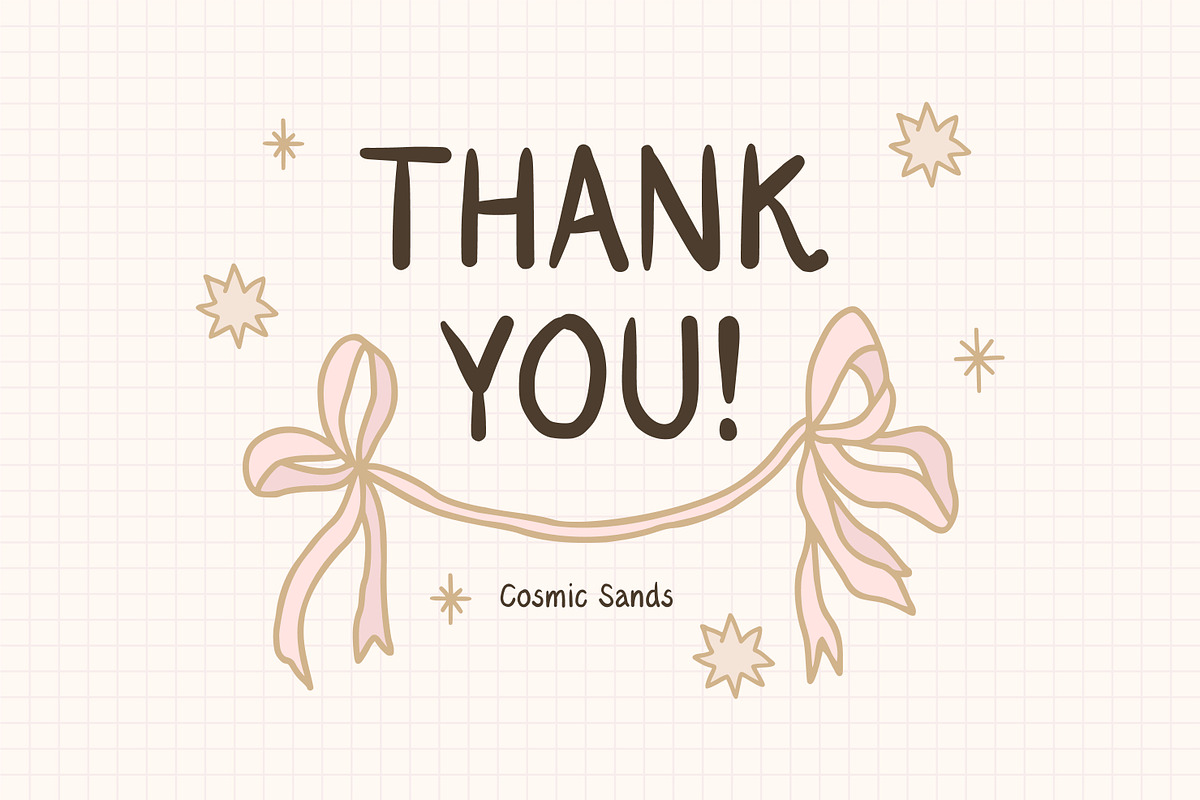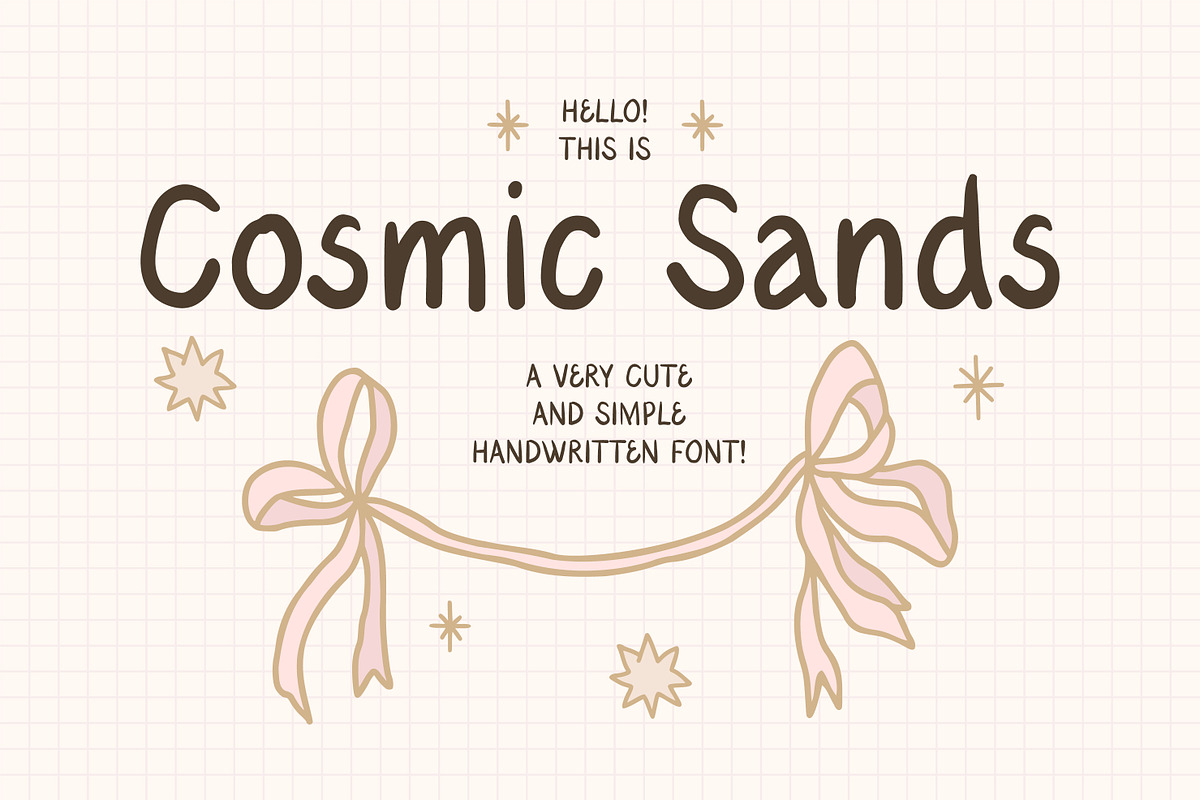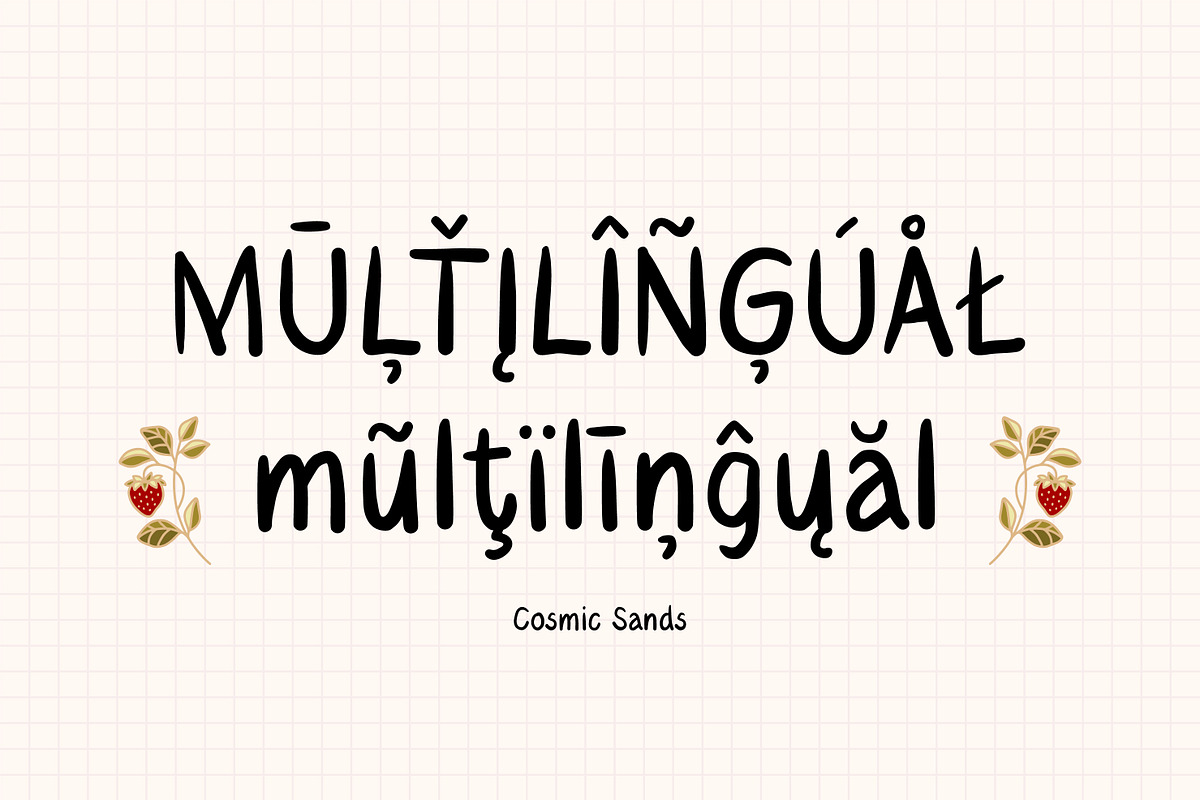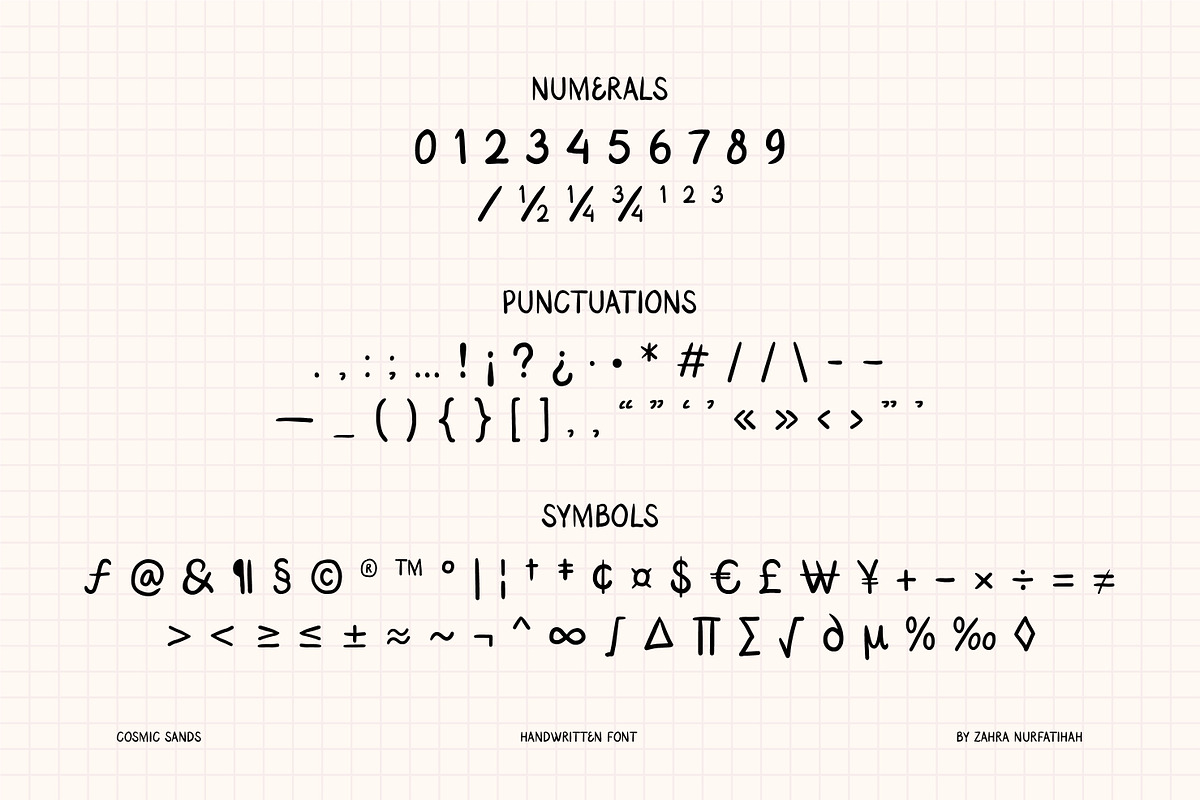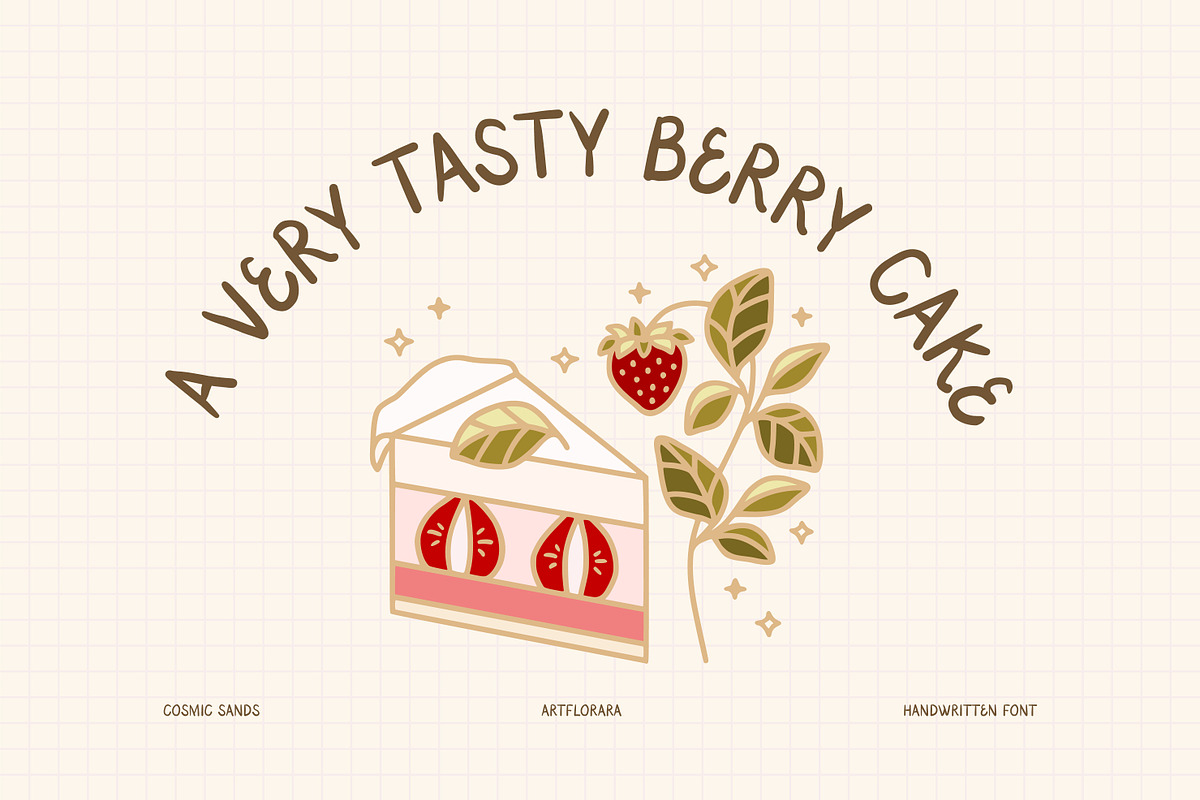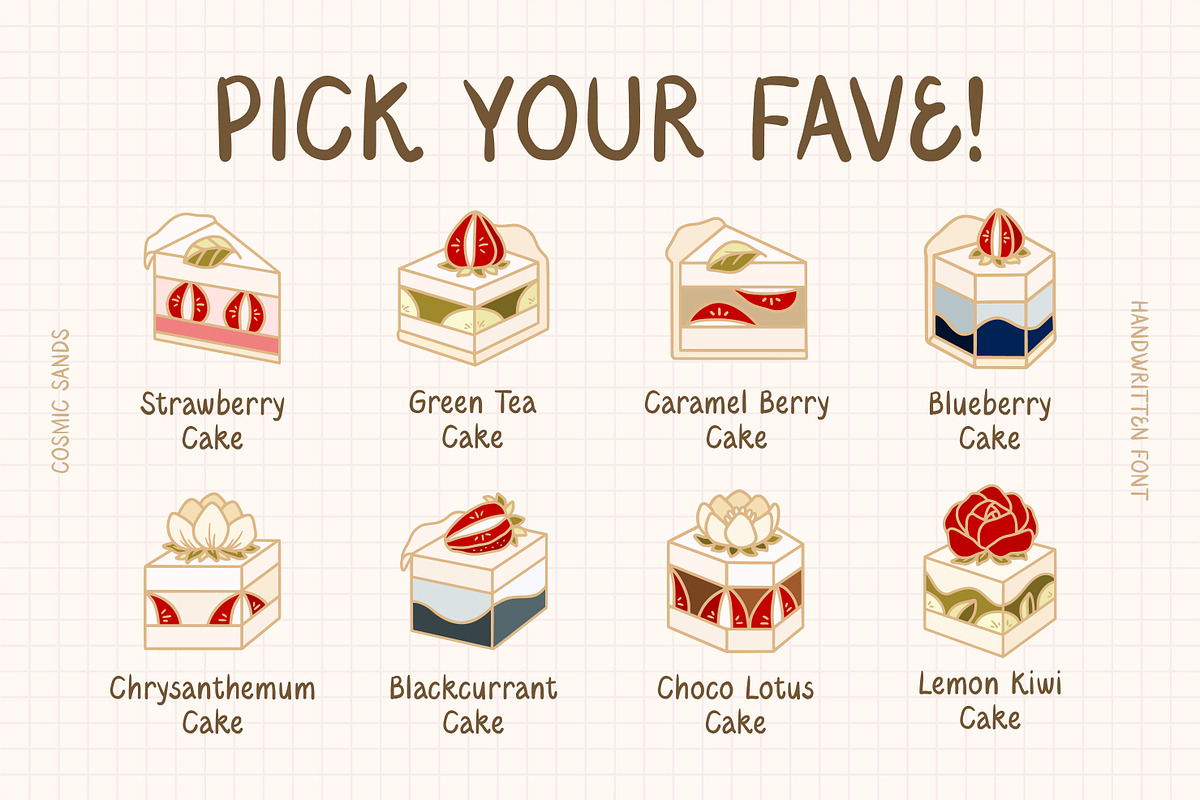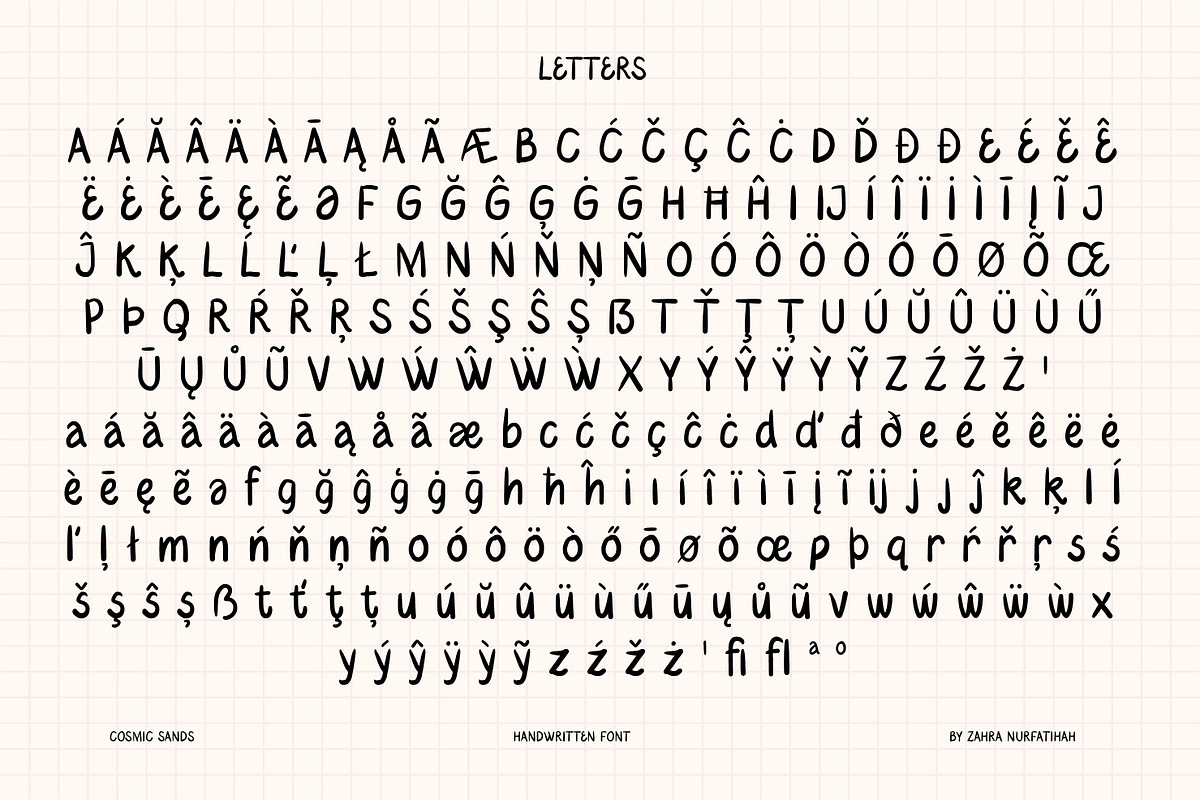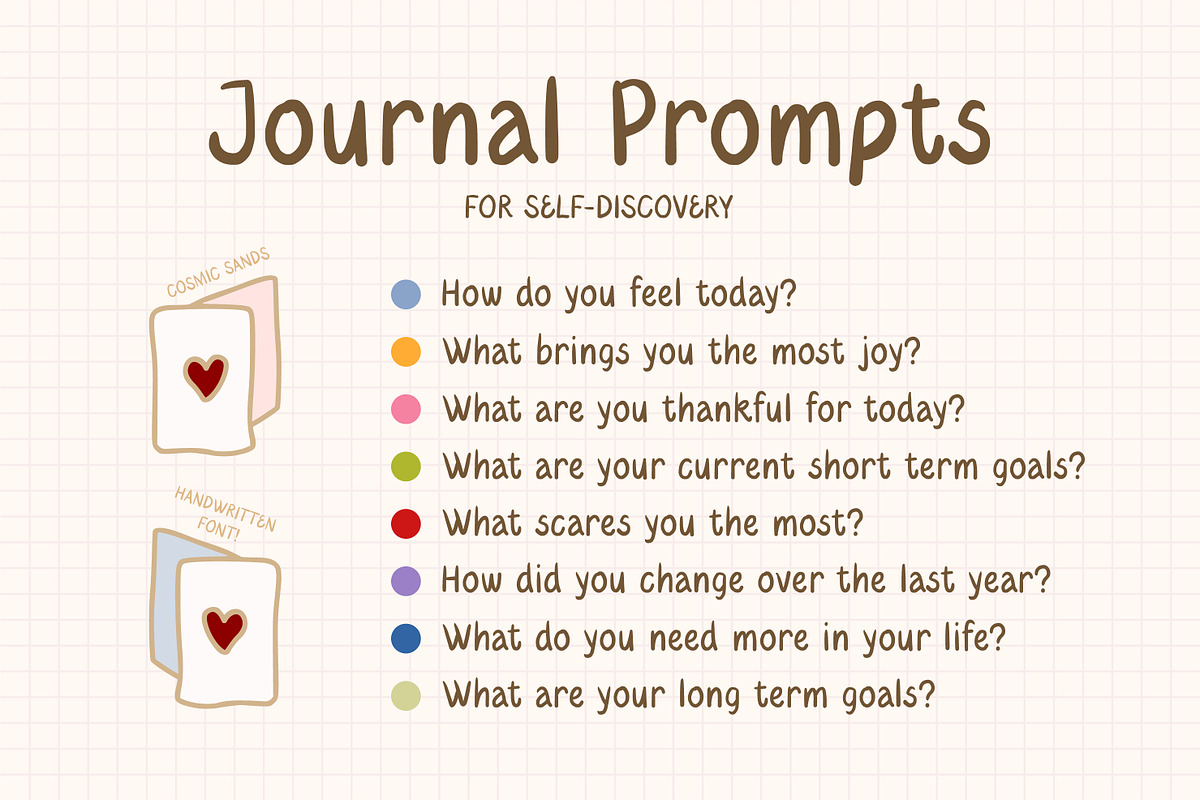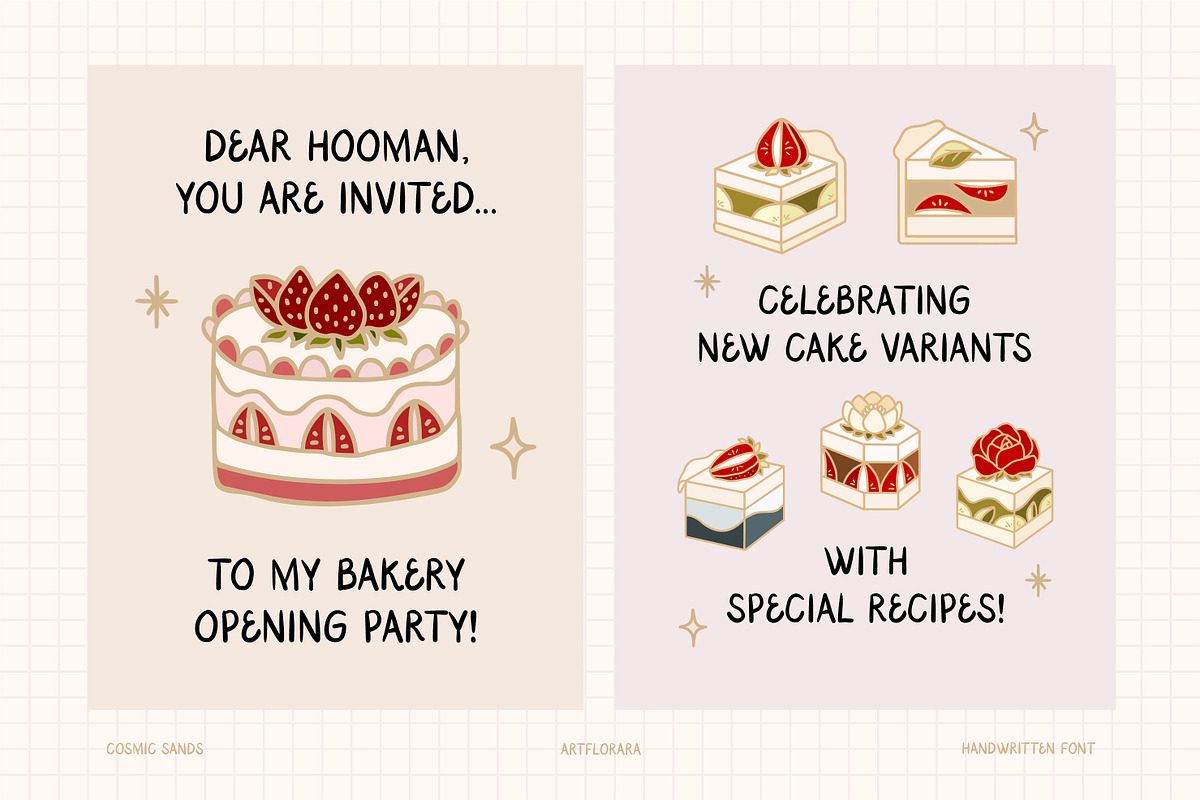
COSMIC SANDS - Handwritten Font!
Introducing Cosmic Sands!
A cute handwritten font, perfect for digital journaling, scrapbooking, love letters, greeting cards, planners, branding, handmade products, crafts, etc.